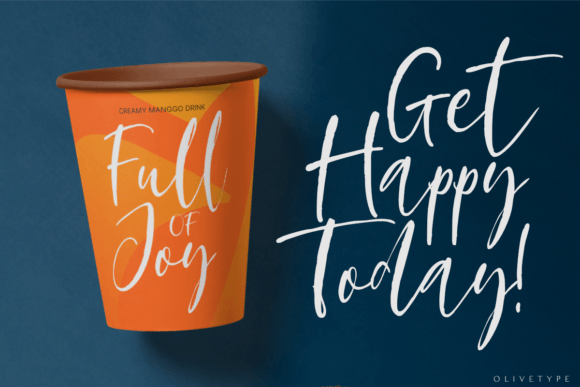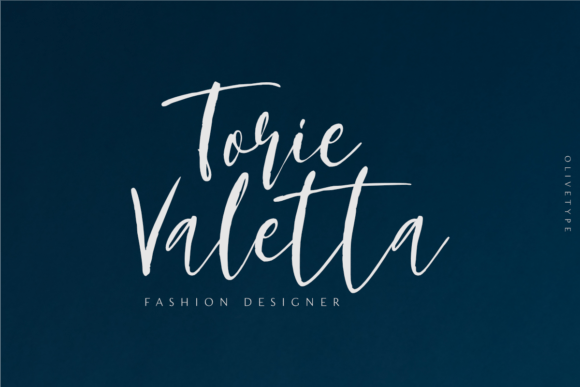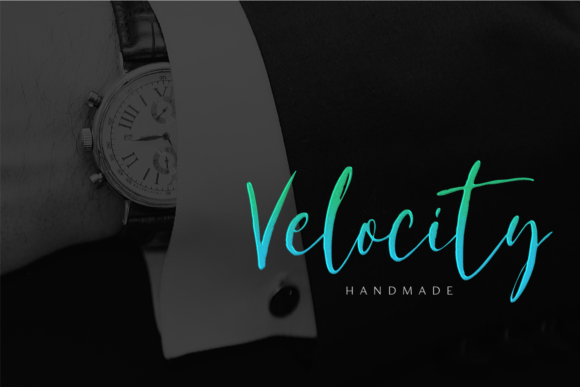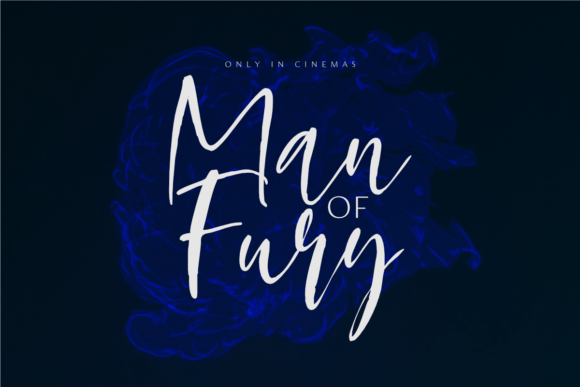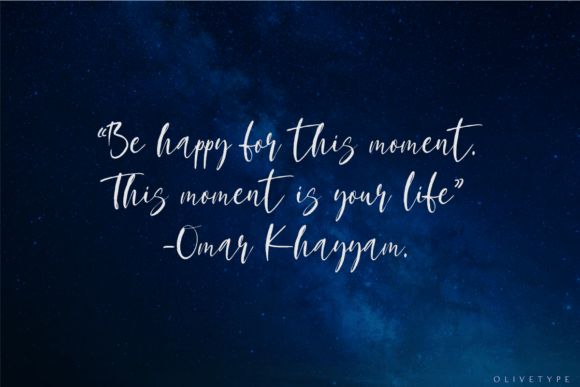
Introducing Cheesy Broccoli Font: The Ultimate Handwritten Font for Creative Designs
Are you tired of using the same old fonts for your designs? Look no further! Cheesy Broccoli Font is here to revolutionize your creative projects with its unique, handwritten style. This cool font is perfect for logotypes, headlines, product packaging, and more. In this article, we’ll dive into the features and benefits of Cheesy Broccoli Font, and explore how you can use it to take your designs to the next level.
What is Cheesy Broccoli Font?
Cheesy Broccoli Font is a carefully crafted, handwritten font that exudes a playful and charming vibe. Its distinctive style makes it an excellent choice for designers and crafters looking to add a personal touch to their work. Whether you’re creating a logo, headline, or product packaging, Cheesy Broccoli Font is sure to make your design stand out.
Key Features of Cheesy Broccoli Font
- Handwritten style: Cheesy Broccoli Font boasts a beautiful, handwritten style that’s perfect for creating unique and eye-catching designs.
- Versatile: This font is suitable for a wide range of design projects, including logotypes, headlines, product packaging, and more.
- High-quality: This font is carefully crafted to ensure high-quality output, making it perfect for both digital and print designs.
Benefits of Using Cheesy Broccoli Font
So, why should you choose Cheesy Broccoli Font for your designs? Here are just a few benefits of using this amazing font:
- Adds a personal touch: Cheesy Broccoli Font’s handwritten style adds a personal touch to your designs, making them more relatable and engaging.
- Stand out from the crowd: With its unique style, Cheesy Broccoli Font helps your designs stand out from the crowd and grab attention.
- Perfect for branding: This font is ideal for creating memorable brand identities that resonate with your target audience.
- Easy to pair with other fonts: Cheesy Broccoli Font pairs well with other fonts, making it easy to create harmonious and visually appealing designs.
Design Ideas Using Cheesy Broccoli Font
Cheesy Broccoli Font is a versatile font that can be used in a variety of design projects. Here are some ideas to get you started:
- Logos and branding: Create a memorable brand identity with Cheesy Broccoli Font.
- Headlines and titles: Use Cheesy Broccoli Font to create eye-catching headlines and titles for your blog posts, articles, and social media graphics.
- Product packaging: Add a personal touch to your product packaging with Cheesy Broccoli Font.
- Invitations and greeting cards: Create beautiful and unique invitations and greeting cards with Cheesy Broccoli Font.
| Font Name | Cheesy Broccoli Font |
| Author | olivetype |